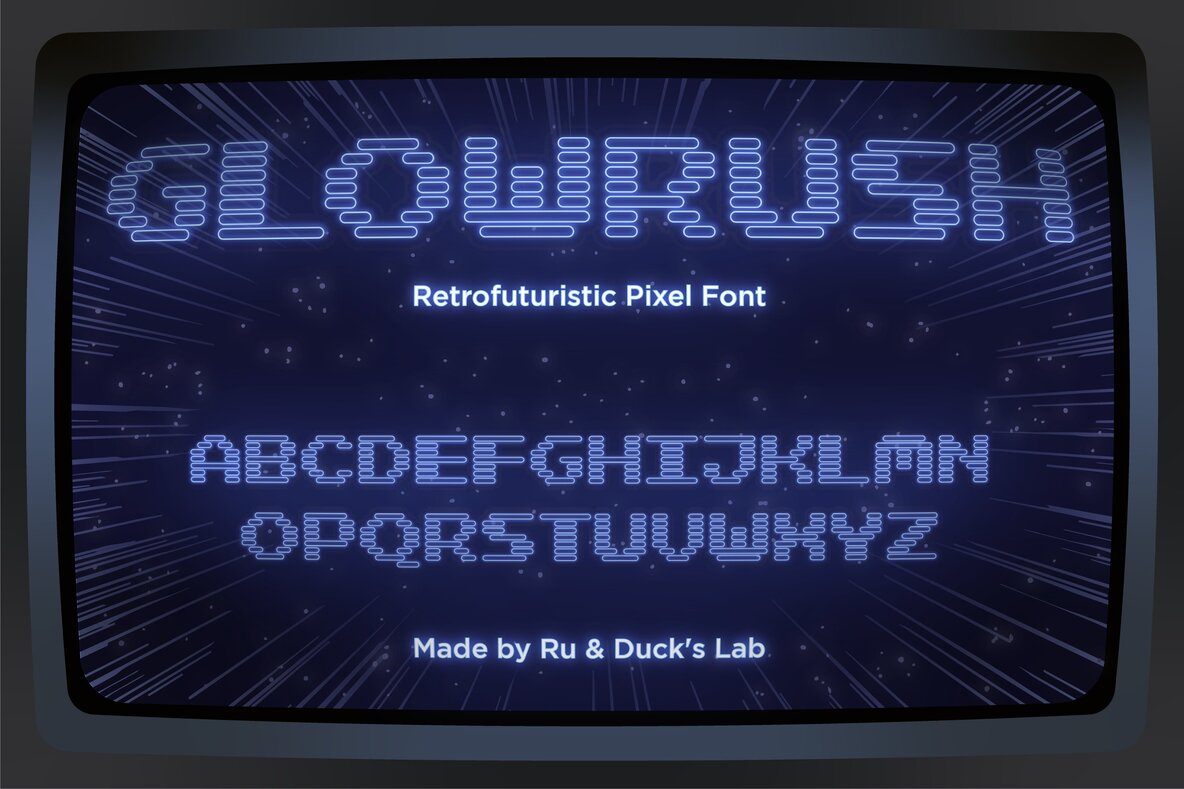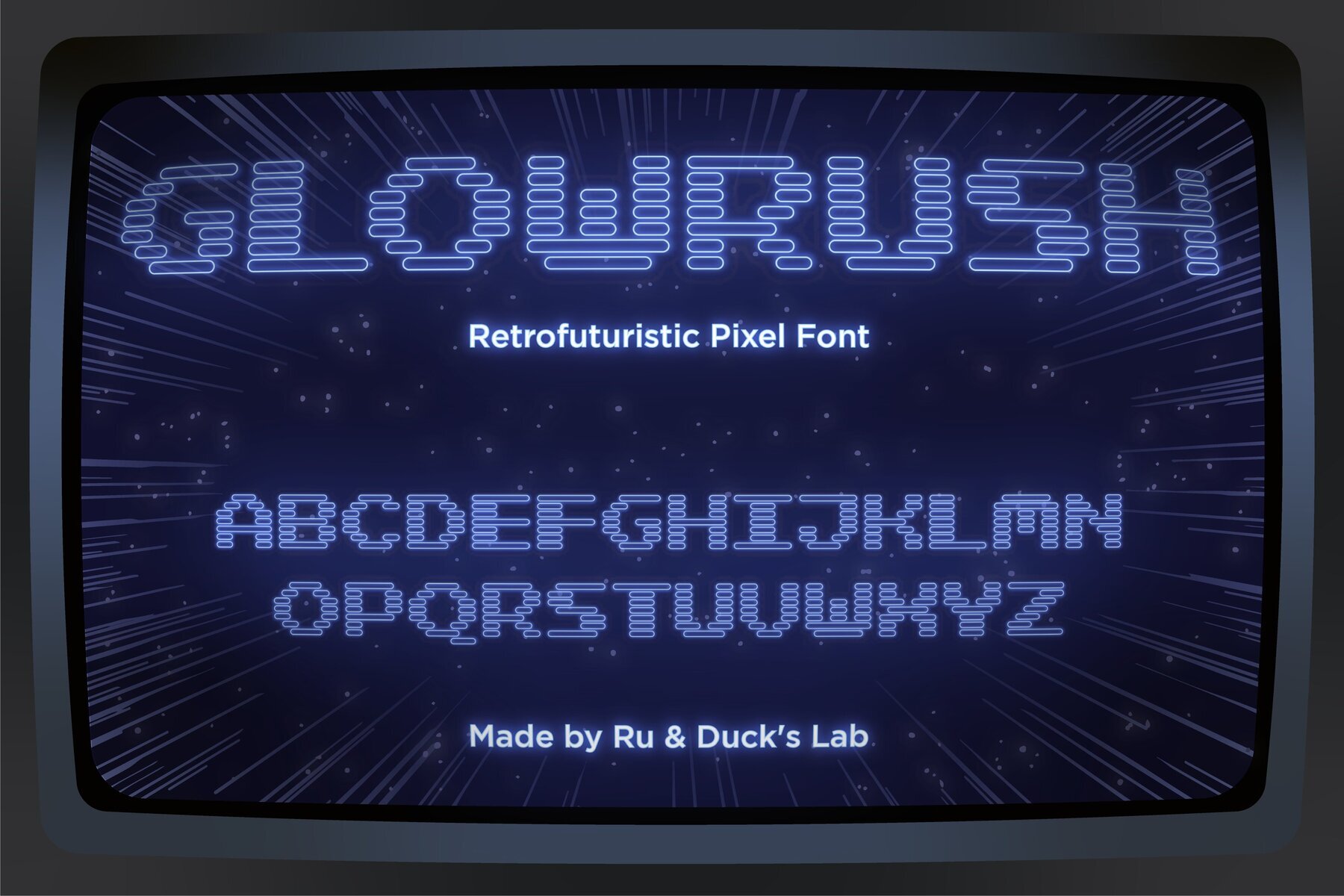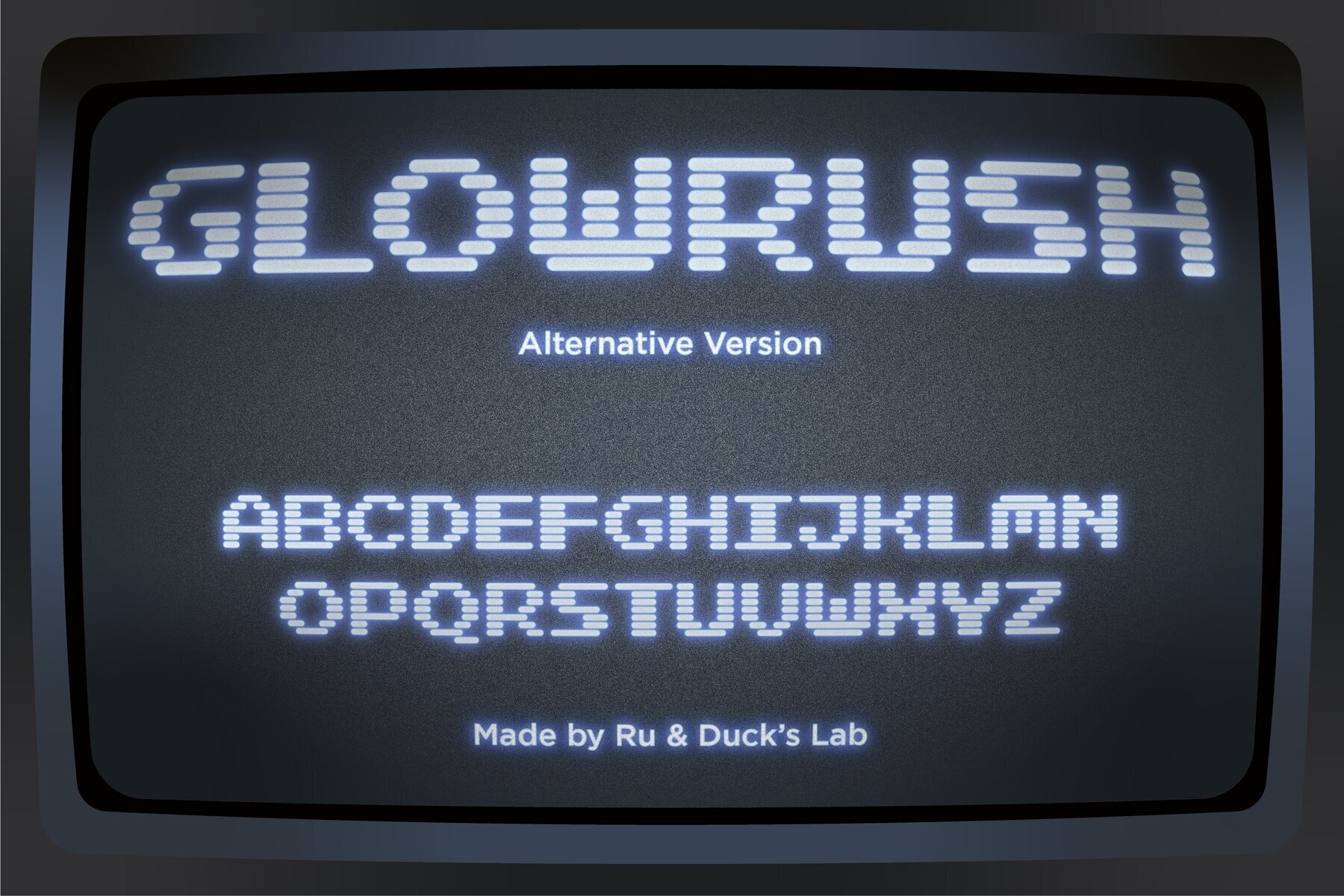
Glow Rush Font
Glow Rush is a glowing all-caps font inspired by retro arcade visuals. The Default set captures the bright neon energy of 80’s game titles, while the Alternate adds a gritty CRT-inspired texture, offering two complementary styles within one file.